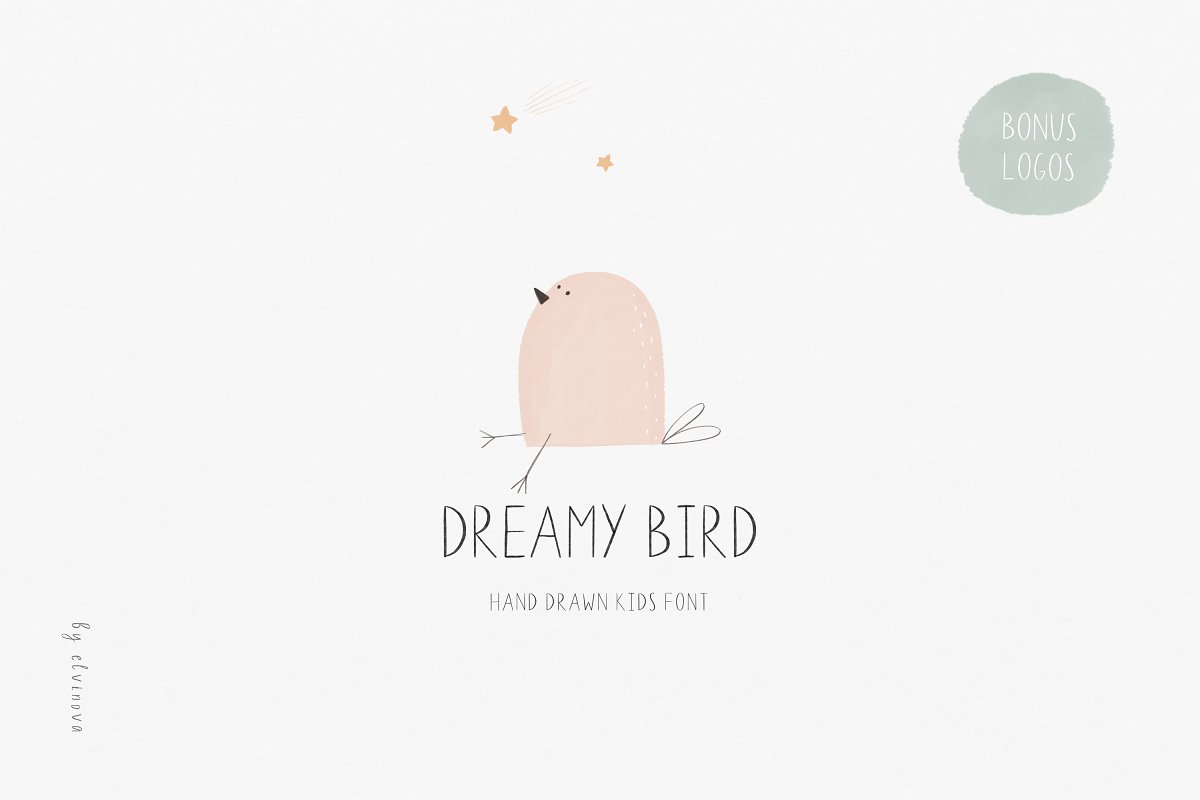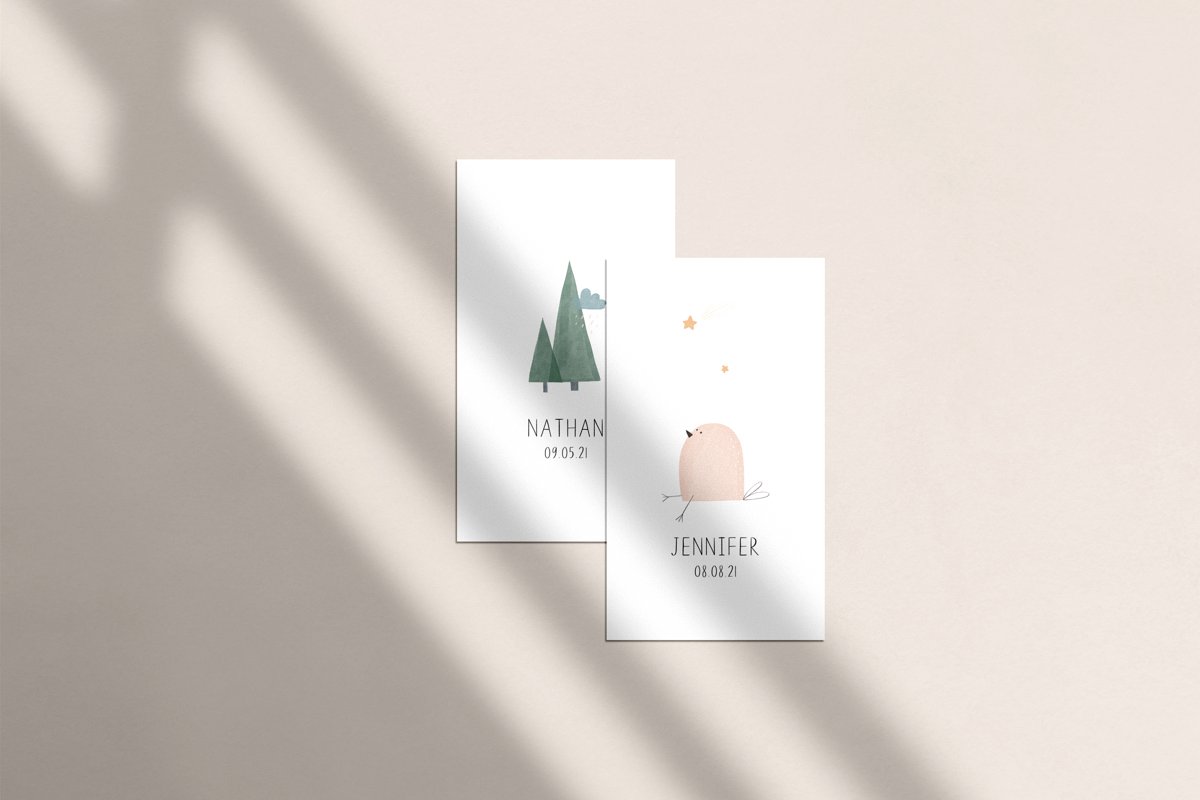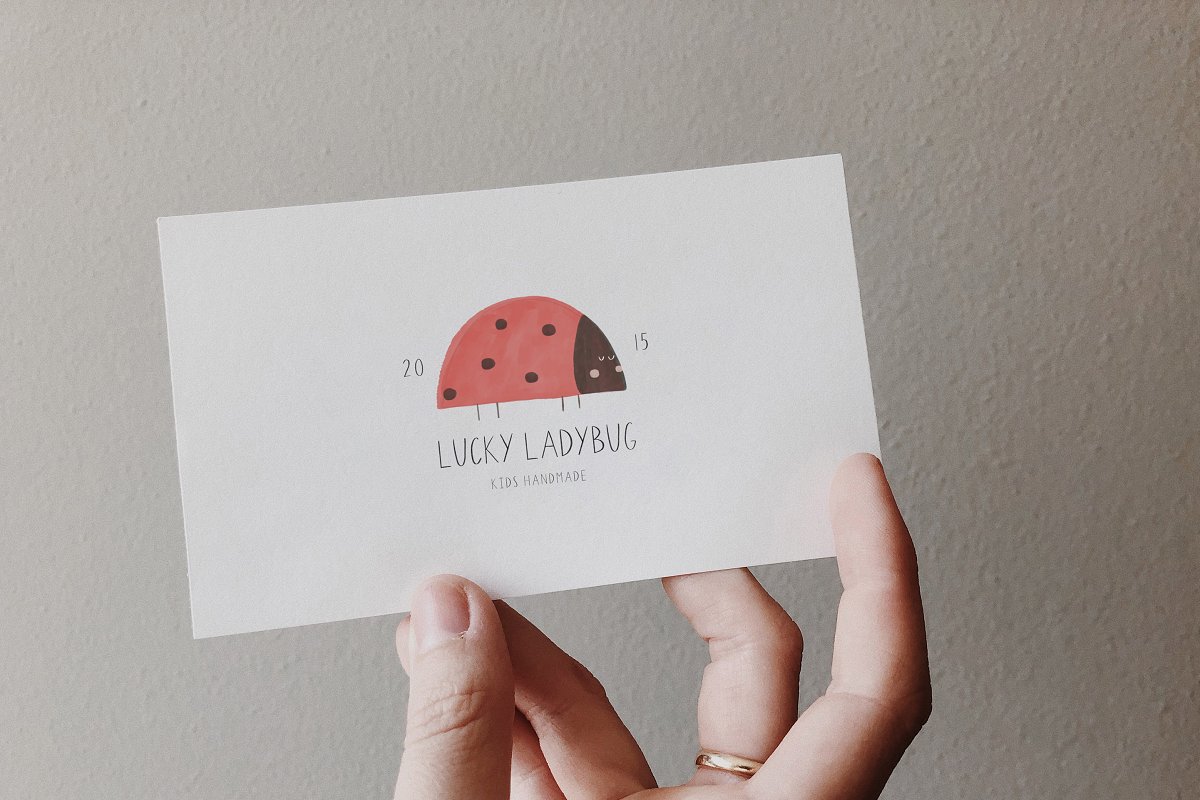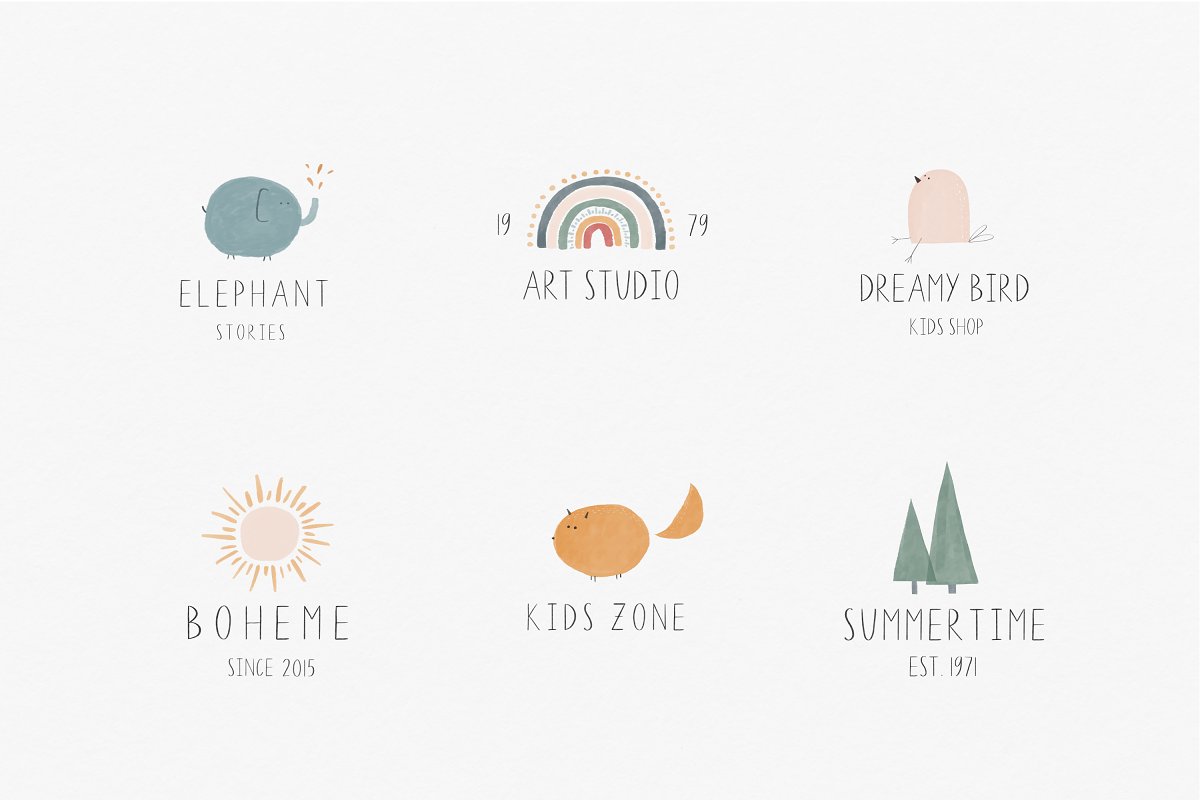
About the Kids cute Font
Please note: The SVG font requires Photoshop CC 2017+, Illustrator CC 2018+ or Procreate 5 to use, The vector version is in a traditional font format and are widely supported, Dreamy bird is a collection of display serif typeface with cute illustrations, Perfect for logos, cards, posters and other designs, So sweet and lovely :)YOU GET:Dreamy Bird SVG font (+ vector version) that contains upper and lowercase characters, number 0-9 and a range of punctuation and symbols (OTF only);6 pre-made logos (PSD);37 individual elements (PNG);paper texture (JPEG)